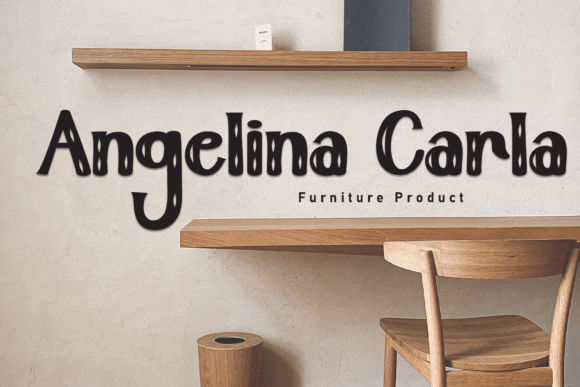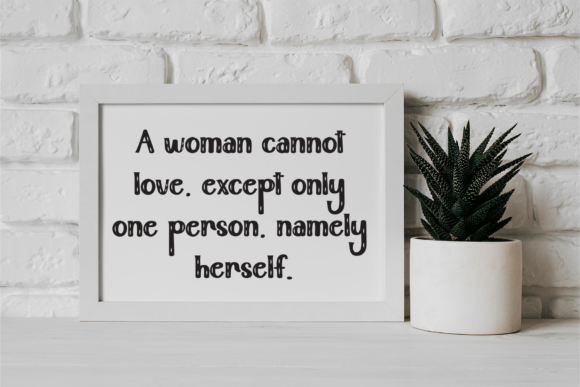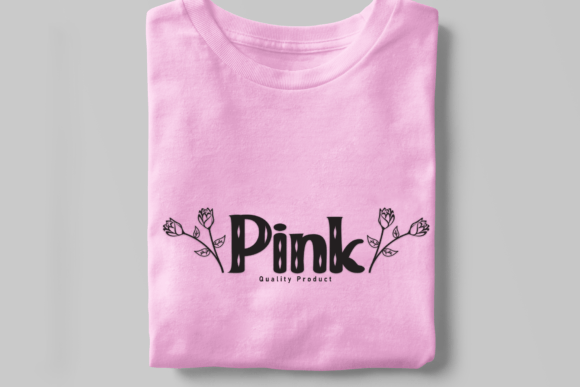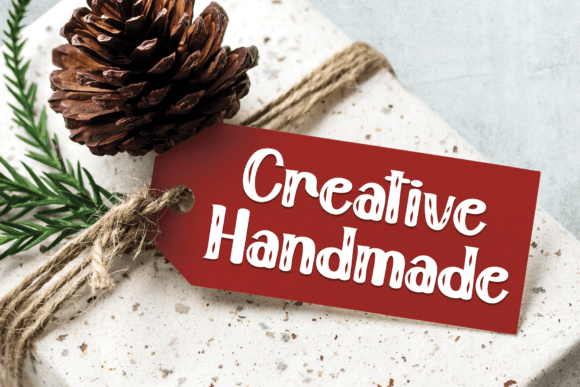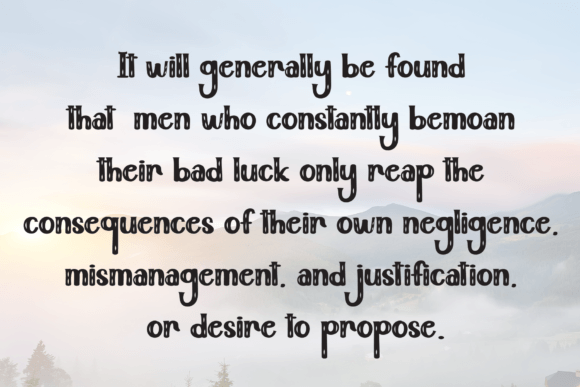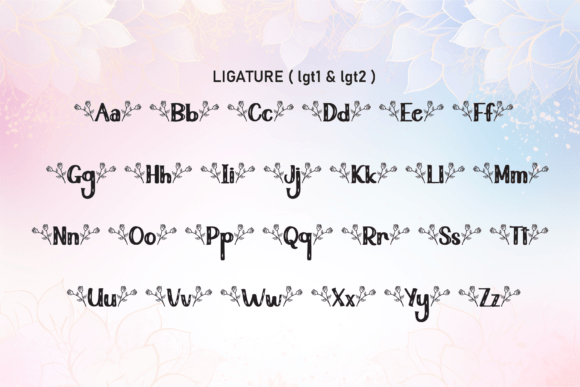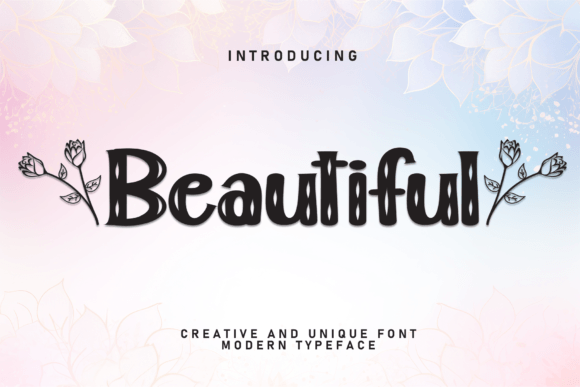
Introducing Beautiful Font: The Sweet and Friendly Handwritten Font for Your Designs
Are you looking for a font that can add a touch of warmth and personality to your designs? Look no further than Beautiful Font, a sweet and friendly handwritten font that’s perfect for creating eye-catching wedding invitations, cards, and other creative projects. In this article, we’ll take a closer look at Beautiful Font, its features, and how you can use it to elevate your designs.
What is Beautiful Font?
Beautiful Font is a handwritten font that’s designed to be both cute and fun. Its sweet and friendly style makes it an ideal choice for designers and crafters who want to add a personal touch to their work. Whether you’re creating wedding invitations, birthday cards, or any other type of design that requires a touch of whimsy, Beautiful Font is the perfect choice.
Key Features of Beautiful Font
So, what makes Beautiful Font so special? Here are some of its key features:
- Handwritten style: Beautiful Font has a genuine handwritten look that’s perfect for creating personal and heartfelt designs.
- Cute and fun: This font is designed to be playful and fun, making it ideal for designs that require a touch of whimsy.
- Versatile: Beautiful Font can be used for a wide range of designs, from wedding invitations and cards to posters and social media graphics.
- Easy to read: Despite its handwritten style, Beautiful Font is easy to read, making it perfect for designs that require a clear and concise message.
Use Cases for Beautiful Font
So, how can you use Beautiful Font in your designs? Here are some use cases to get you started:
- Wedding invitations: Beautiful Font is perfect for creating romantic and personalized wedding invitations that will set the tone for your special day.
- Birthday cards: Add a touch of whimsy to your birthday cards with Beautiful Font, making them extra special for the recipient.
- Social media graphics: Use Beautiful Font to create eye-catching social media graphics that will help you stand out from the crowd.
- Posters and flyers: Beautiful Font can add a touch of personality to your posters and flyers, making them more effective at grabbing attention.
Tips for Using Beautiful Font
Here are some tips for getting the most out of Beautiful Font:
- Pair with other fonts: Beautiful Font pairs well with other fonts, so don’t be afraid to experiment with different combinations to find the perfect look for your design.
- Use it sparingly: While Beautiful Font is cute and fun, it can be overwhelming if used too much. Use it sparingly to add a touch of personality to your design.
- Experiment with colors: Beautiful Font looks great in a variety of colors, so don’t be afraid to experiment with different color schemes to find the perfect look for your design.
In conclusion, Beautiful Font is a sweet and friendly handwritten font that’s perfect for designers and crafters who want to add a touch of personality to their work. With its cute and fun style, Beautiful Font is ideal for creating eye-catching wedding invitations, cards, and other creative projects. Whether you’re a seasoned designer or just starting out, Beautiful Font is a great addition to your font library.